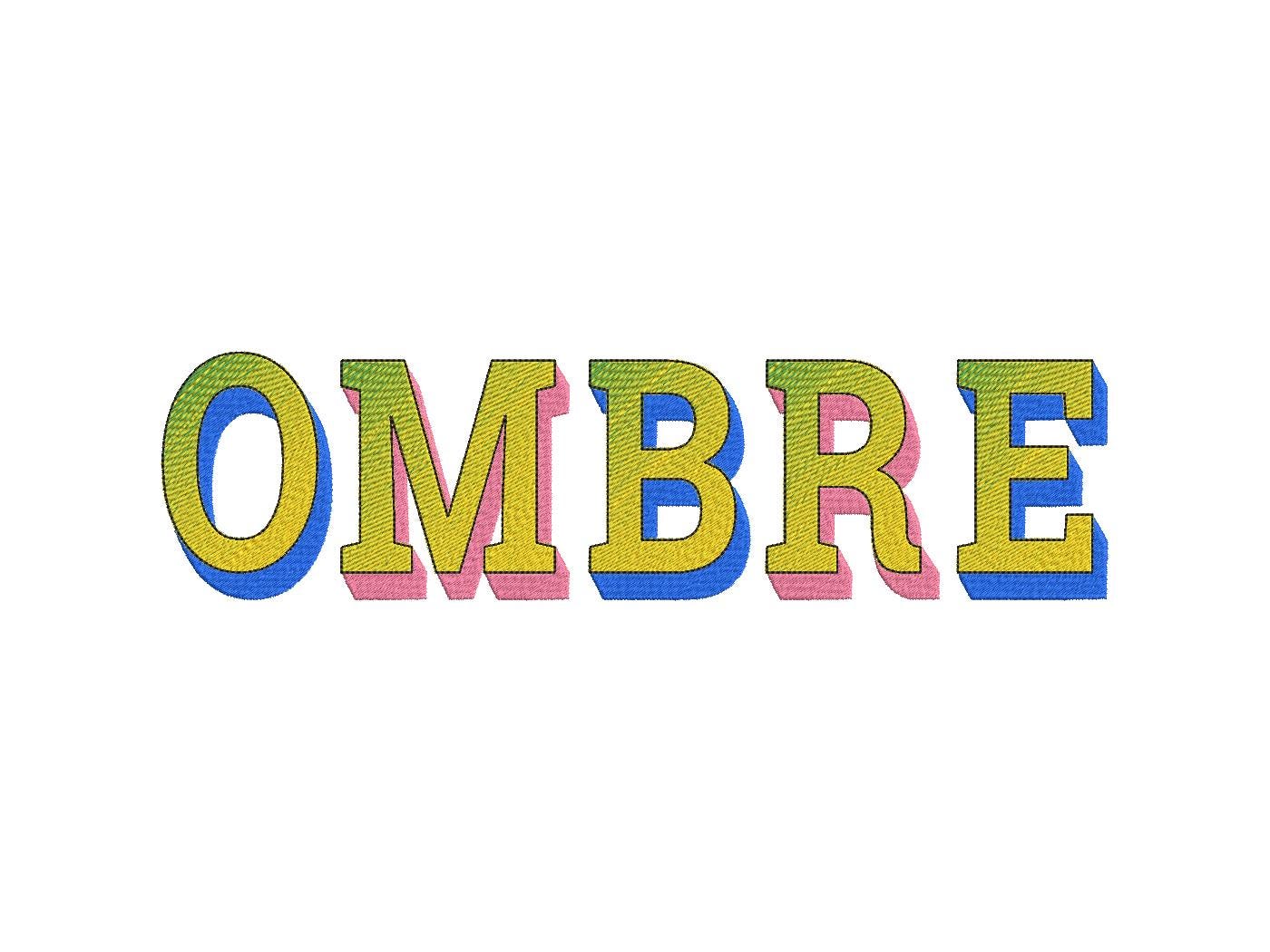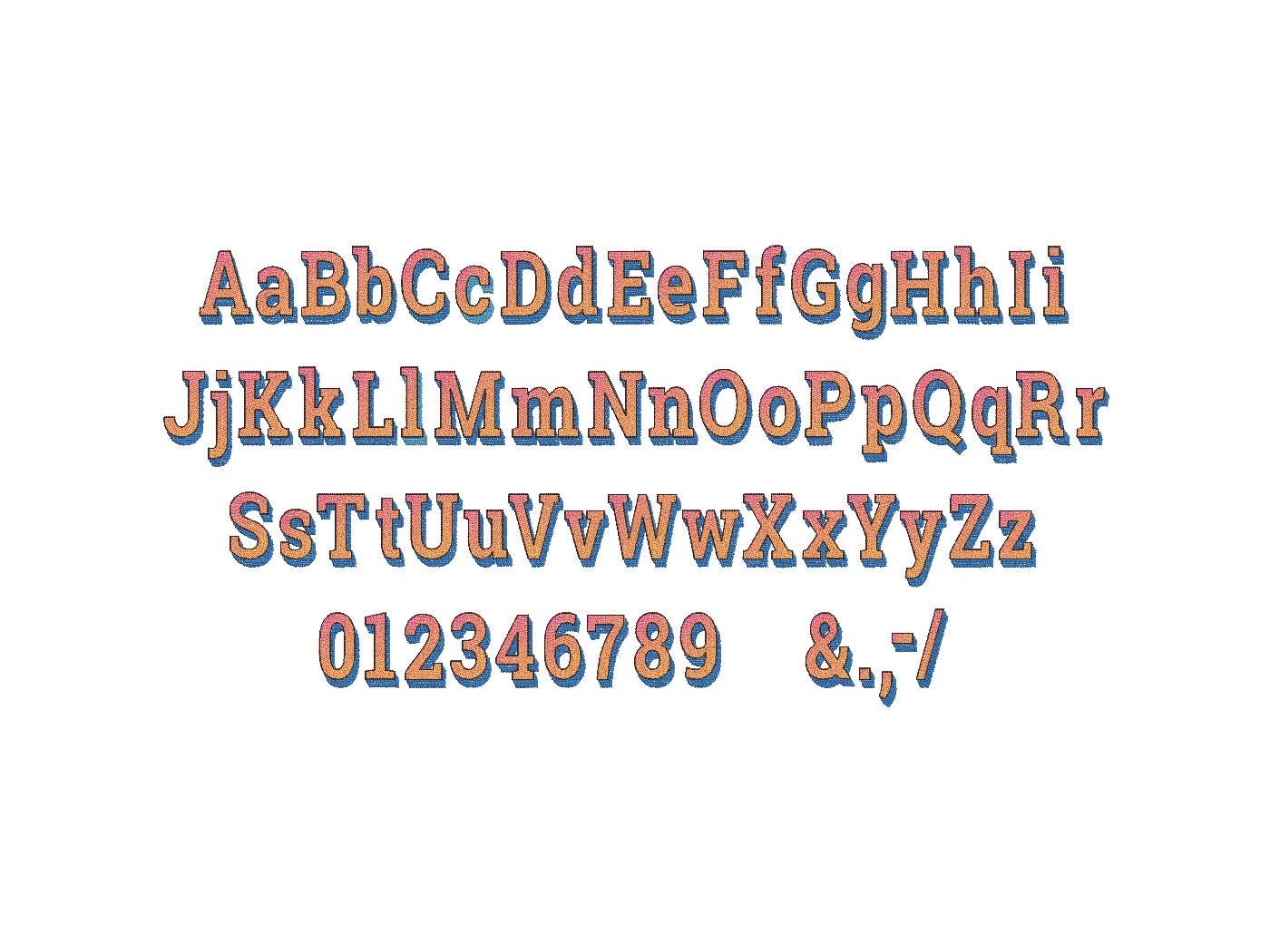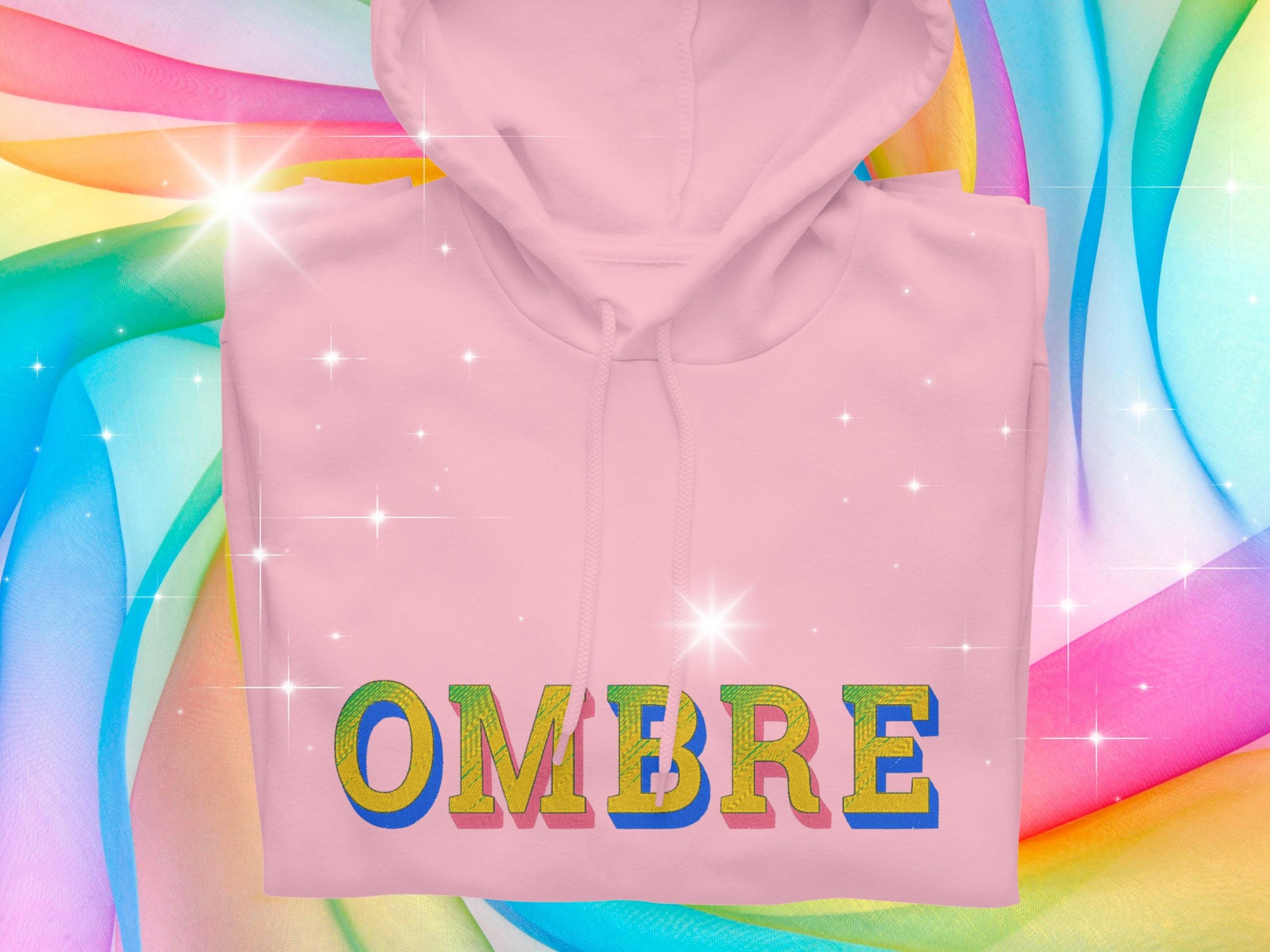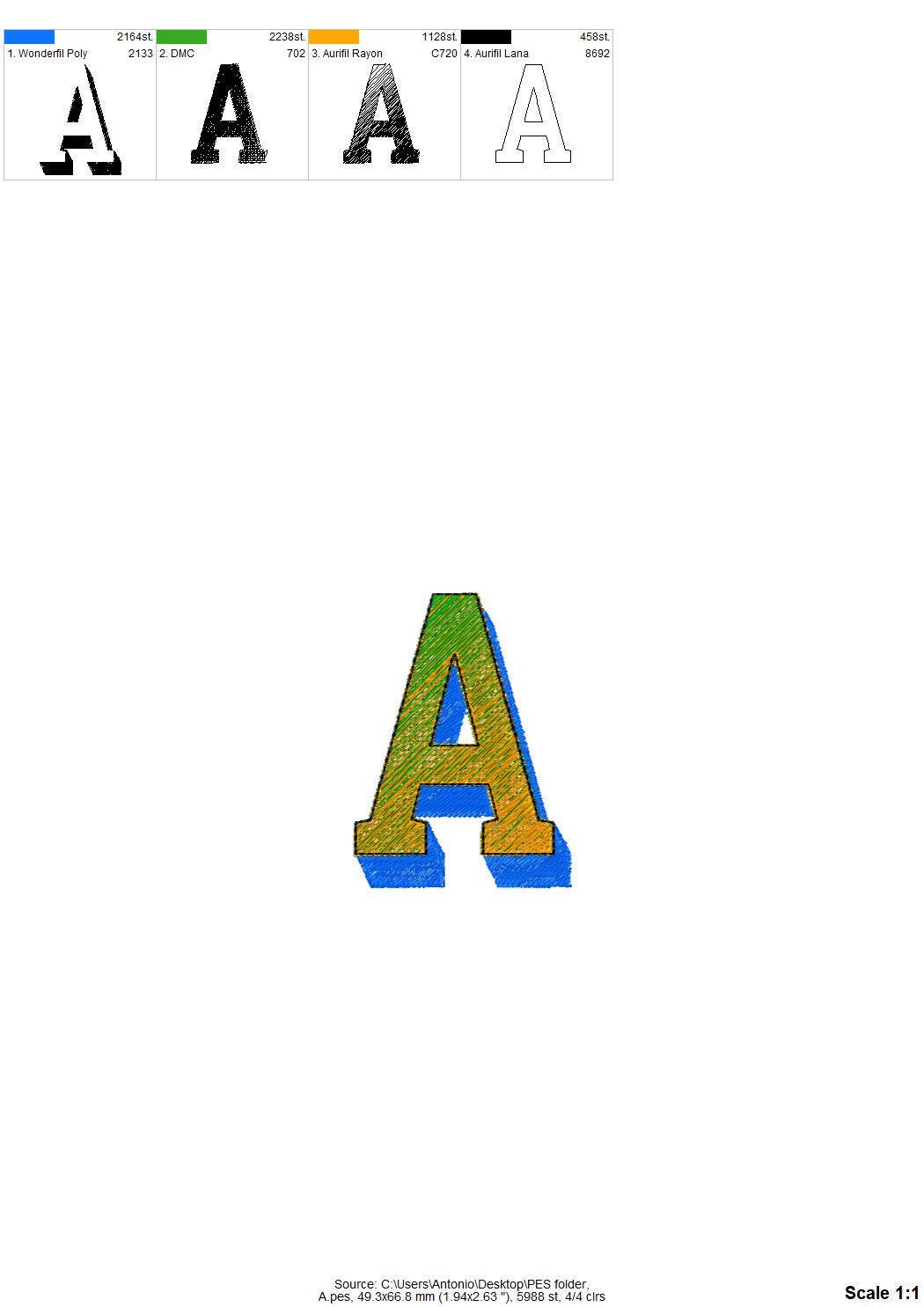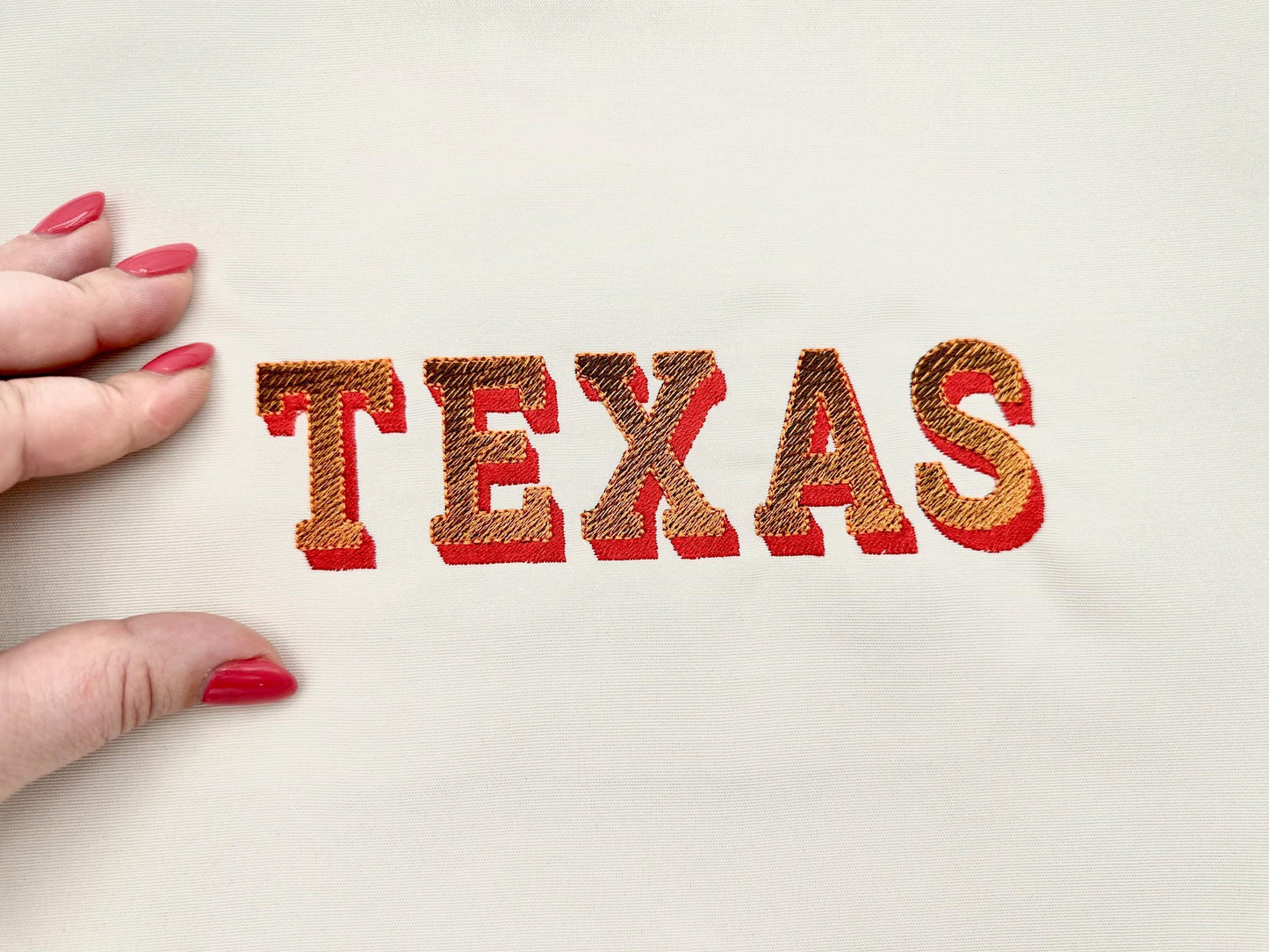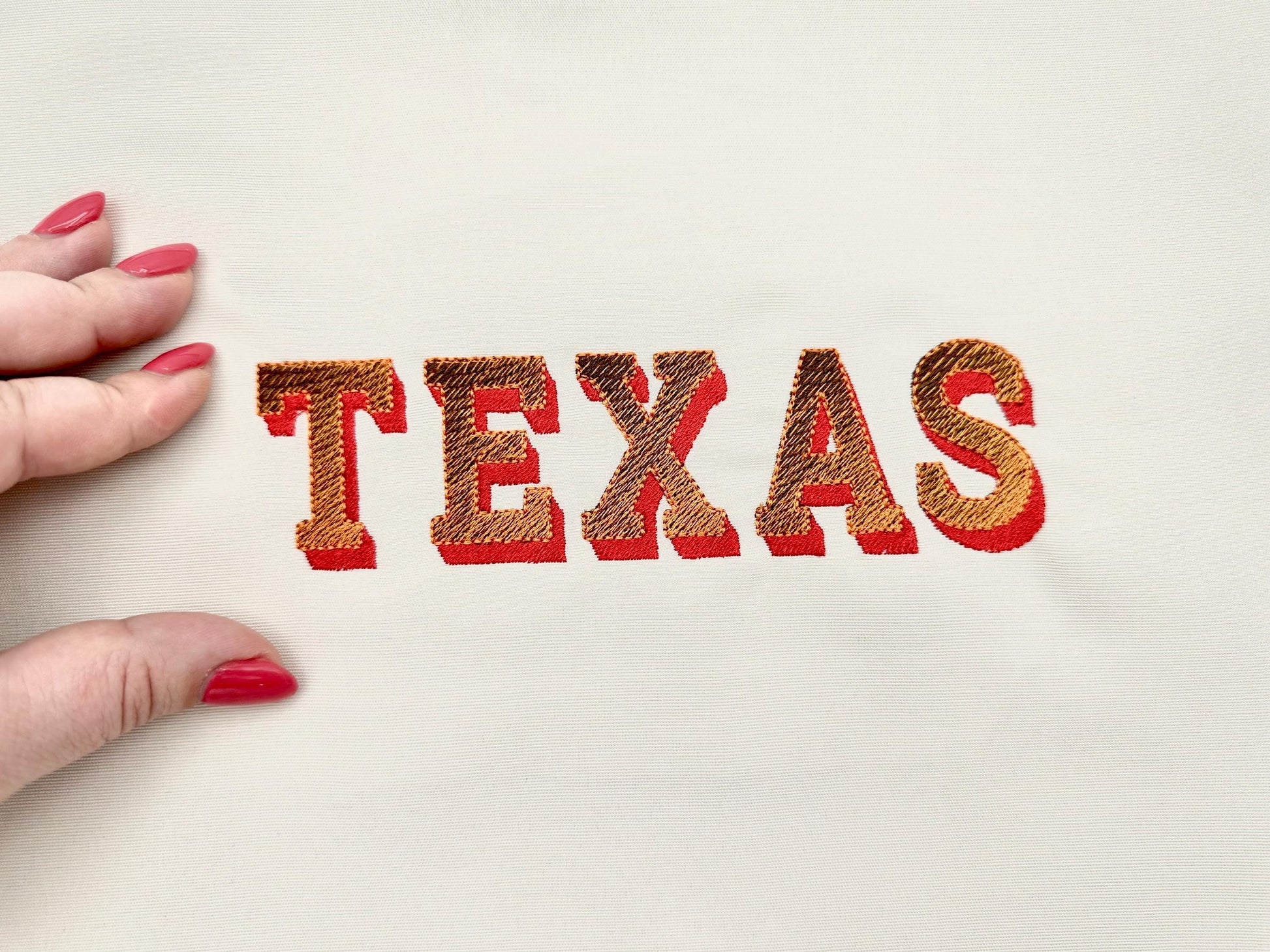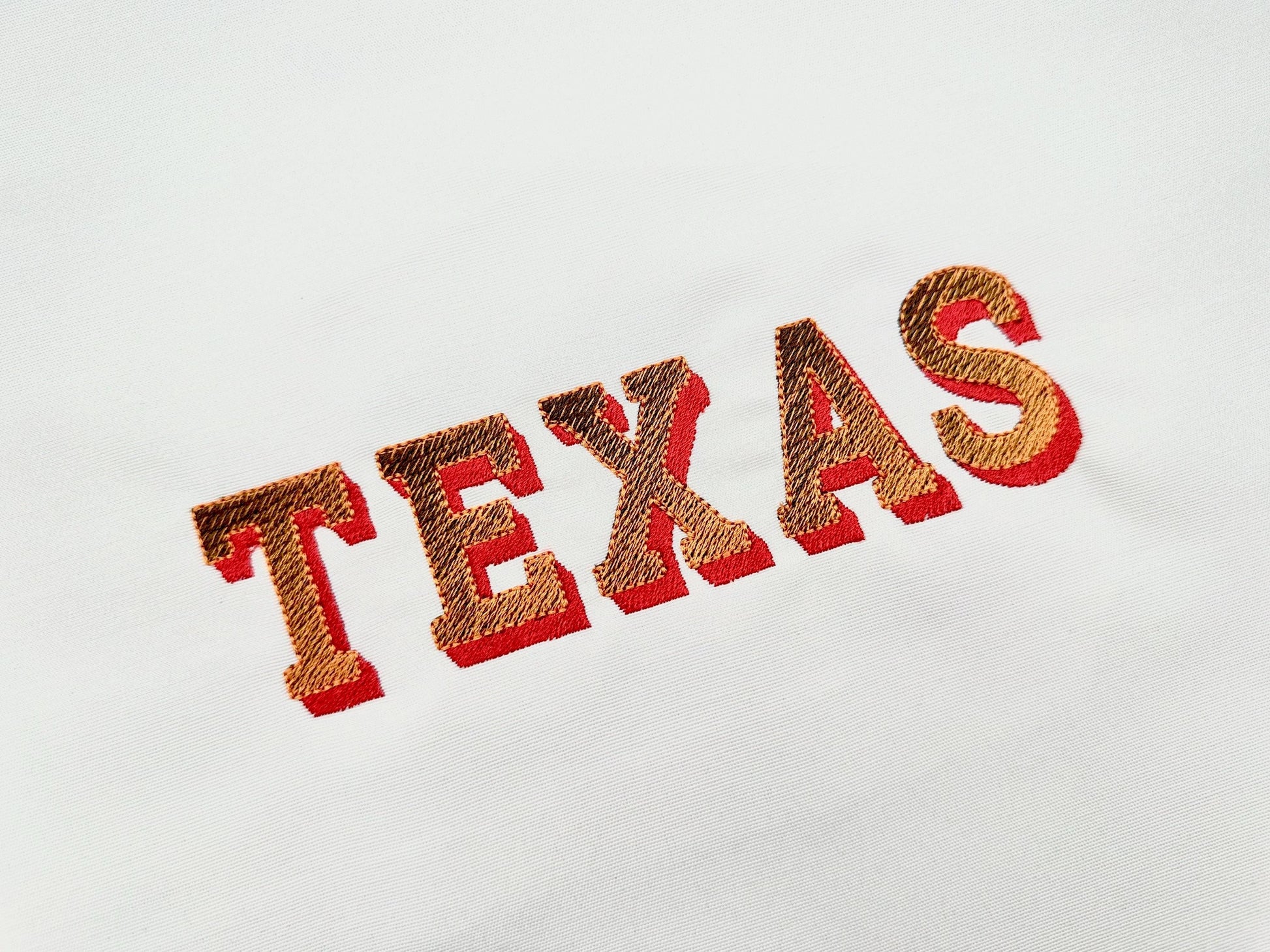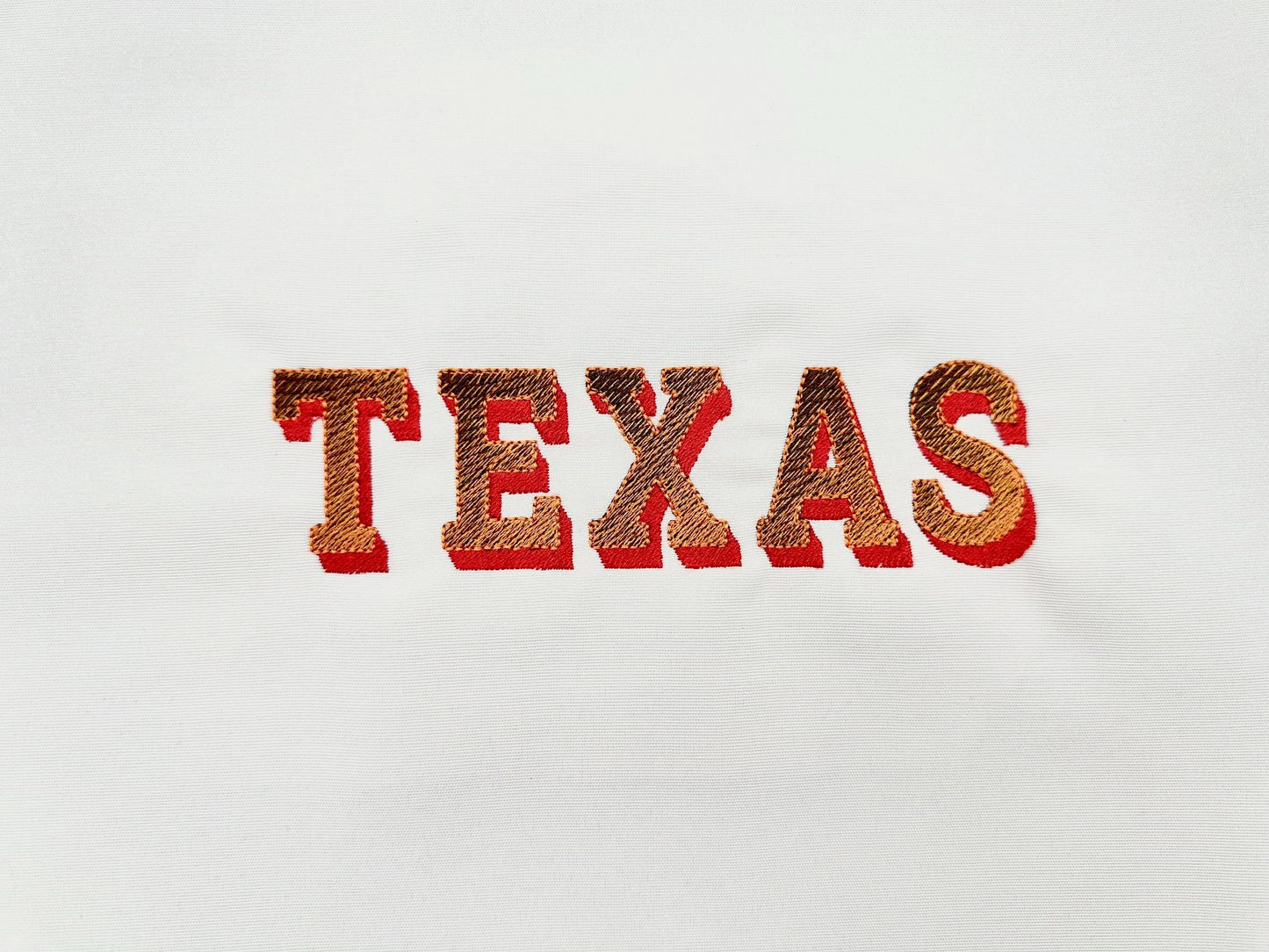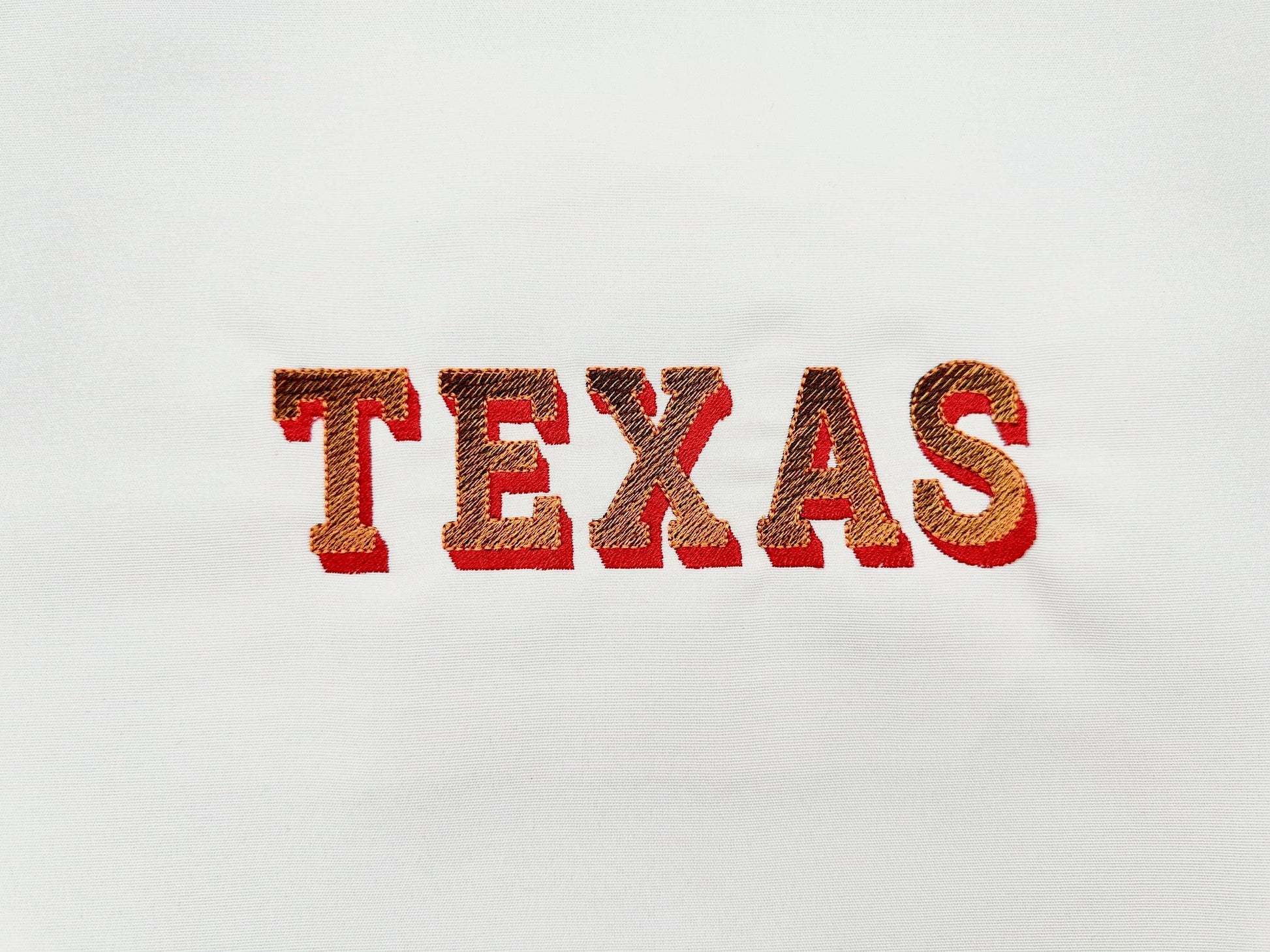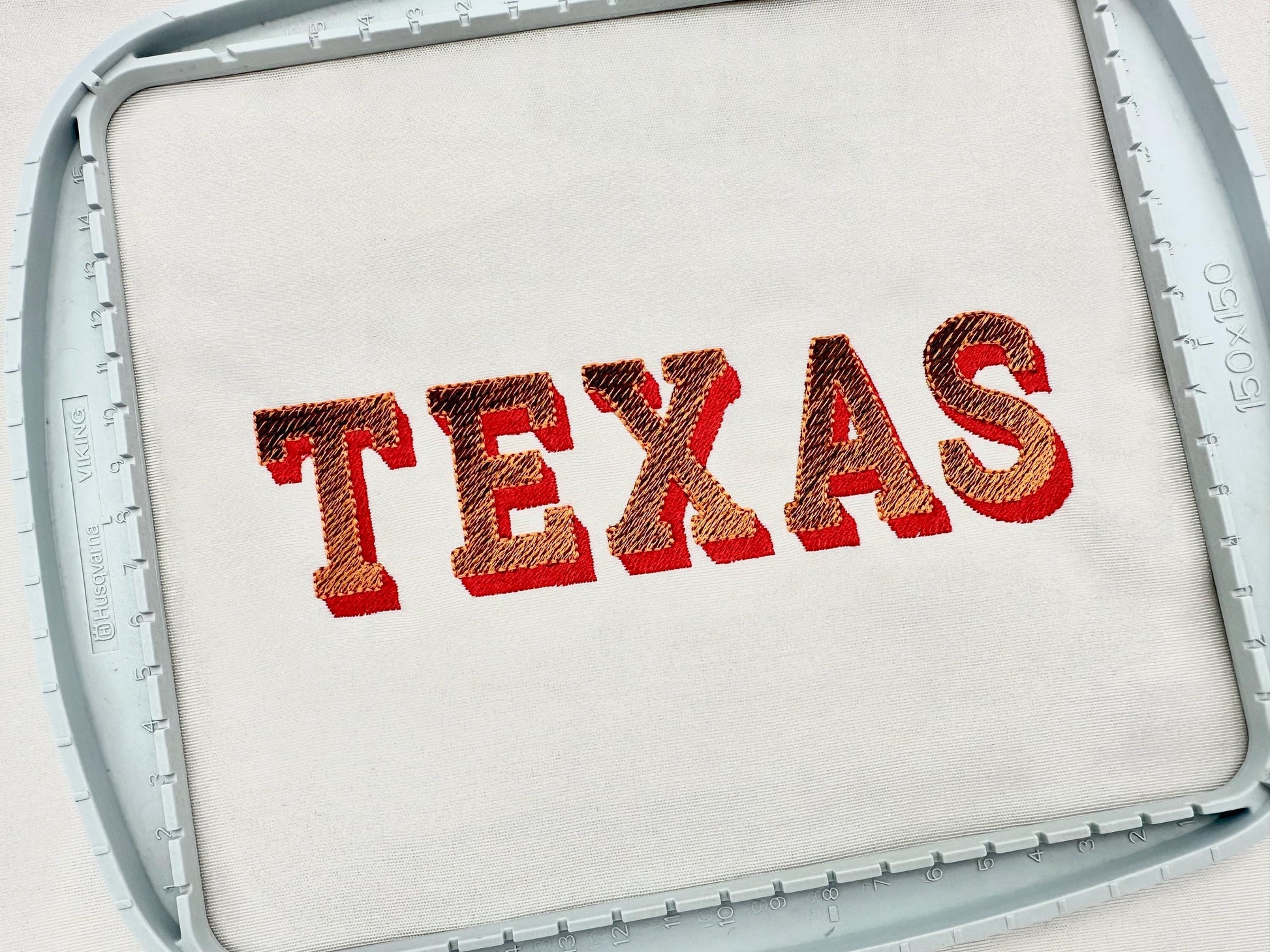
Iridescent Shadow Block Font
The letters come in six sizes: 1.7, 2.1, 2.6, 3.3, 4 and 4.7 inches. Each letter is filled with two regular thread colors that blend into an iridescent effect, with a third color for the shadow and a fourth for the outline. Includes uppercase and lowercase letters A to Z, numbers 0 to 9 and punctuation.